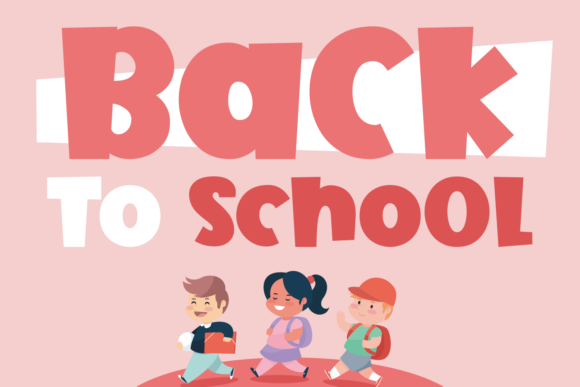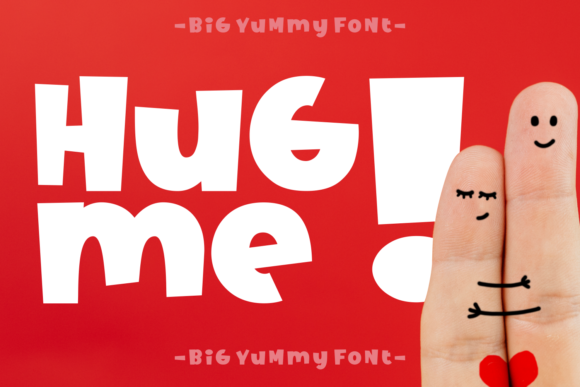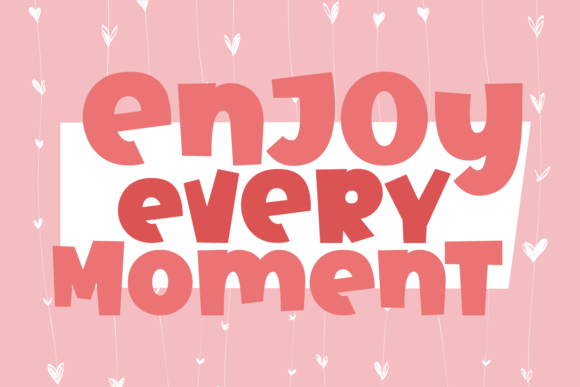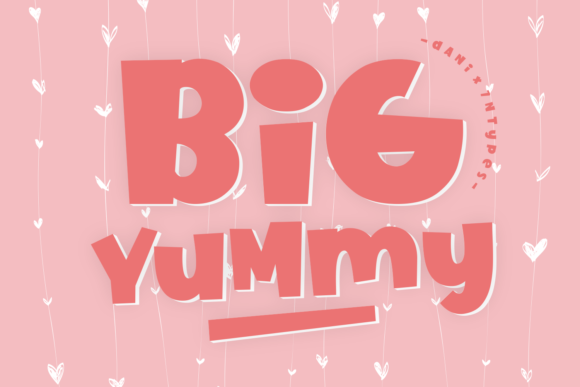
Introducing Big Yummy Font: The Perfect Blend of Bold and Cute
Are you tired of using the same old fonts for your designs? Look no further! Big Yummy Font is here to take your creative projects to the next level. This bold and cute display font is carefully handcrafted to become a true favorite among designers and crafters. In this article, we’ll dive into the features and benefits of Big Yummy Font, and explore how it can elevate your designs.
The Story Behind Big Yummy Font
Big Yummy Font is designed with love and care to bring a touch of personality to your designs. Its creators aimed to craft a font that would stand out in any context, whether it’s being used on busy backgrounds or as a standalone headline. The result is a font that’s both bold and cute, making it perfect for a wide range of projects, from branding and advertising to crafting and DIY tutorials.
Key Features of Big Yummy Font
• Bold and Cute Design: Big Yummy Font boasts a unique and eye-catching design that’s sure to grab attention. Its bold lines and cute details make it perfect for creating visually appealing headlines and titles.
• Handcrafted with Love: This font is carefully handcrafted to ensure that every letter and detail is perfect. The result is a font that feels personal and unique.
• Versatile and Adaptable: Big Yummy Font can be used in a variety of contexts, from busy backgrounds to standalone headlines. Its versatility makes it a great addition to any designer’s toolkit.
• Easy to Read: Despite its bold design, Big Yummy Font is easy to read, making it perfect for use in titles, headings, and other display text.
Uses for Big Yummy Font
Big Yummy Font is perfect for a wide range of projects, including:
• Branding and Advertising: Use Big Yummy Font to create eye-catching logos, headlines, and titles that will help your brand stand out.
• Crafting and DIY Tutorials: Add a personal touch to your crafting and DIY tutorials with Big Yummy Font. Its bold and cute design is perfect for creating visually appealing titles and headings.
• Social Media Graphics: Use Big Yummy Font to create engaging social media graphics that will help your content stand out.
• Signage and Posters: Big Yummy Font is perfect for creating eye-catching signage and posters that will grab attention.
Tips for Using Big Yummy Font
Here are a few tips for getting the most out of Big Yummy Font:
• Experiment with Colors: Big Yummy Font looks great in a variety of colors. Experiment with different colors to find the perfect combination for your design.
• Use it as a Headline: Big Yummy Font is perfect for use as a headline or title. Use it to grab attention and draw the reader in.
• Pair it with Other Fonts: Big Yummy Font pairs well with a variety of other fonts. Experiment with different combinations to find the perfect pairing for your design.
Big Yummy Font is a bold and cute display font that’s perfect for designers and crafters looking to add a touch of personality to their projects. Its handcrafted design, versatility, and ease of use make it a great addition to any designer’s toolkit. Whether you’re creating branding and advertising materials, crafting and DIY tutorials, or social media graphics, Big Yummy Font is sure to become a true favorite.